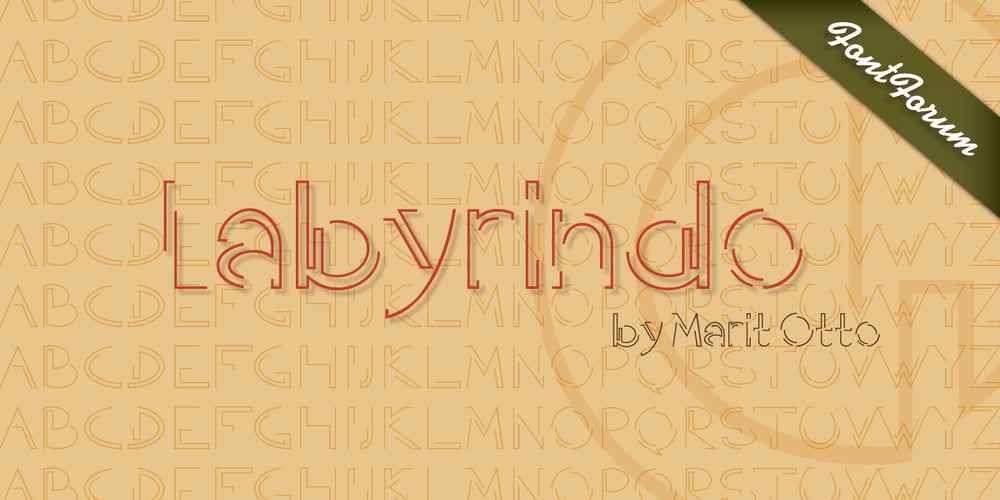
Labyrindo Font Family was designed by Marit Angenita Otto and published by URW Type Foundry. Labyrindo contains 1 styles and family package options. Labyrindo is inspired on the classic Labyrinth. The oldest known labyrinth is 3200 years old and is to be found in Greece. The mythological king Minos held the monstrous son of his wife ‘Minotaurus’ prison in a labyrinth. Much later the labyrinth made his appearance in the medieval churches, this time as a pattern on the church floor. During the Italian renaissance the multiple gate labyrinth came in fashion. Paths led trough green hedges in beautiful palace gardens. These hedges where perfectly cut in rectangular shapes. Mainly meant as an aesthetic statement. Besides the origin of the physic labyrinth, it has always been a great source of story-telling and myths. I mention a few personal favourites (film) like, Pan’s Labyrinth (a journey to the underworld), Labyrinth (with David Bowie) and the Shining with Jack Nicholson (where a horrific scene takes place in a labyrinth). Not the most cheerful stories but fascinating and intriguing. A Labyrinth is mind boggling and mysterious but wonderful. I made graphic translation in this typeface.